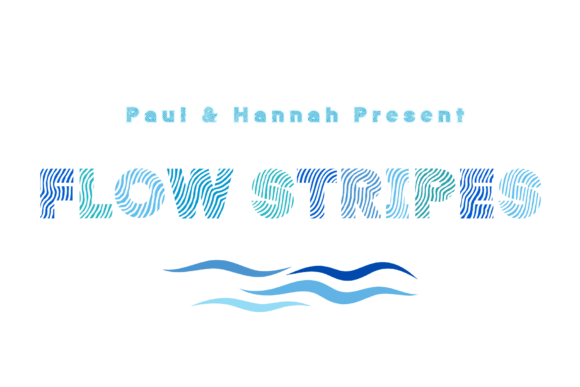
Unleash the Power of Water in Your Designs
Have you ever found yourself mesmerized by the movement of water, watching the waves roll in or the ripples on a still pond? That same feeling of fluid motion can be captured in your designs with the Flow Stripes Font, a highly decorative display font that brings a sense of kinetic energy to your work.
Flow Stripes is a unique typeface where each character is formed by complex, stylized undulating waves and stripes, giving it a truly organic feel. Perfect for projects focused on motion and nature, this font is an exceptional statement piece that’s designed for maximum decorative impact in titles and large text.
As a designer, you’ll appreciate the versatility of Flow Stripes Font, which can be used for a wide range of creative projects, from coastal branding and environmental designs to summer event posters and packaging for water-related products.
Key Features of Flow Stripes Font
- Unique Characteristics: Flow Stripes Font features a unique, hand-drawn design with flowing stripes that add a touch of elegance and sophistication to any text-based application.
Flow Stripes Font Review
Overall, I think the Flow Stripes Font is an interesting addition to the world of typography. ✨ It’s unique and bold, which can be a great asset for designers looking to add some personality to their projects.
- ✨ The font’s bold and playful nature makes it perfect for headings and titles.
- ✨ The various line widths and colors add a lot of visual interest and can be used to create unique and eye-catching designs.
- ✨ The font is highly customizable, making it a great choice for designers who want to add their own personal touch.
- ⚠️ The font can be overwhelming if used too much in a single design, so it’s best to use it sparingly.
- ⚠️ The font’s bold nature can make it difficult to read at small sizes, so it’s best to use it for larger text elements.
- ⚠️ Some users may find the font’s unique style to be distracting or annoying, so it’s best to use it in designs where the goal is to grab attention.
The Flow Stripes Font is a fun and bold font that can add a lot of personality to a design. While it may have some limitations, I think it’s a great choice for designers who want to add some visual interest to their projects. Just be sure to use it sparingly and in the right context to get the most out of it.
The Flow Stripes Font is ideal for creating eye-catching headings and titles. Use it to add a modern touch to your designs. You can also use it to create a sense of movement and energy in your graphics. Experiment with different font sizes and styles to achieve the desired effect.